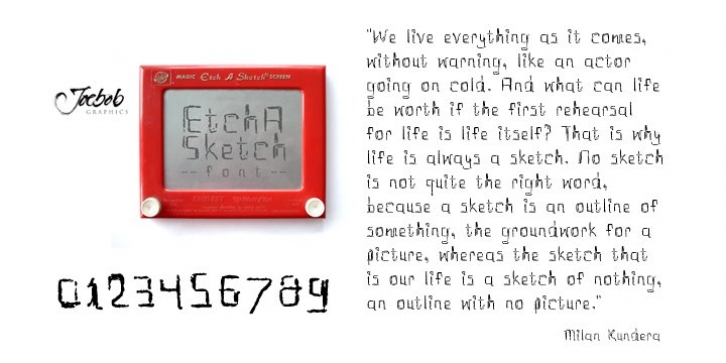
Etch A Sketch downloadDesigner: Jeroen “Joebob” van der Ham
Publisher: JOEBOB graphics
I finally managed to create a font from the characters I wrote on my Etch A Sketch board.
A bit grungy, but definitely something else.